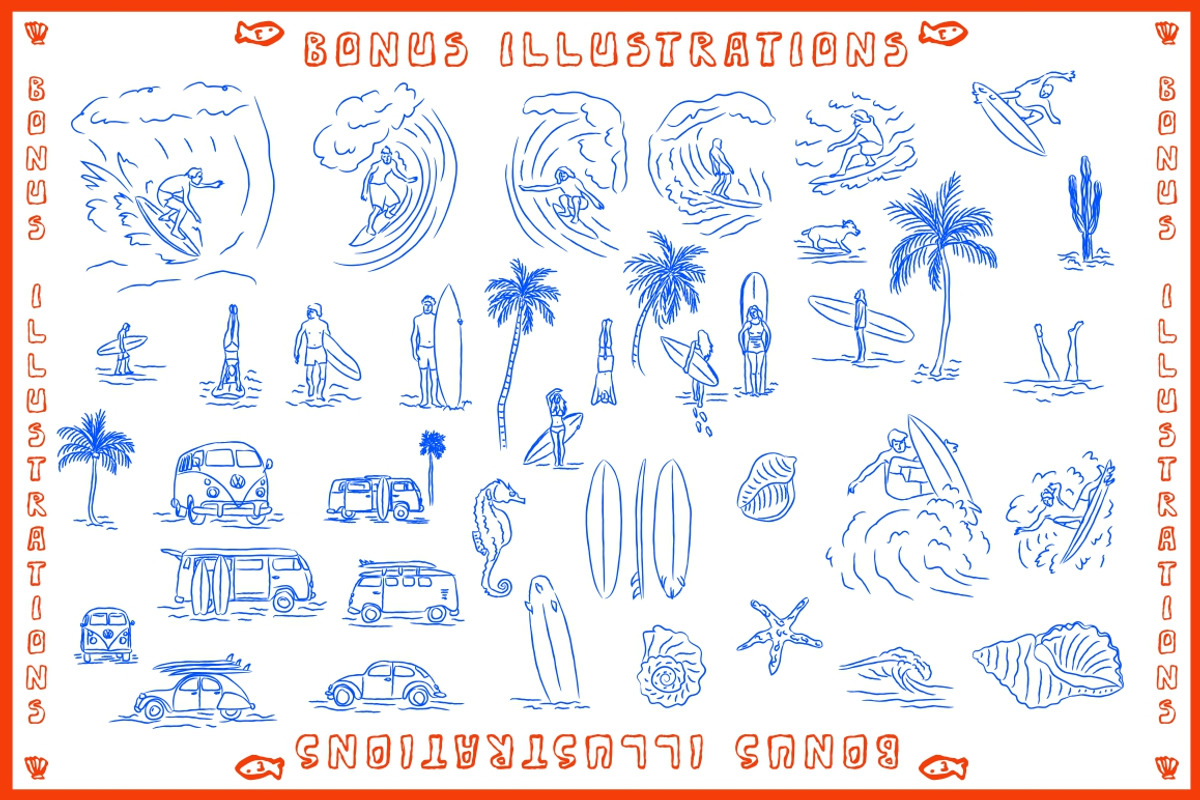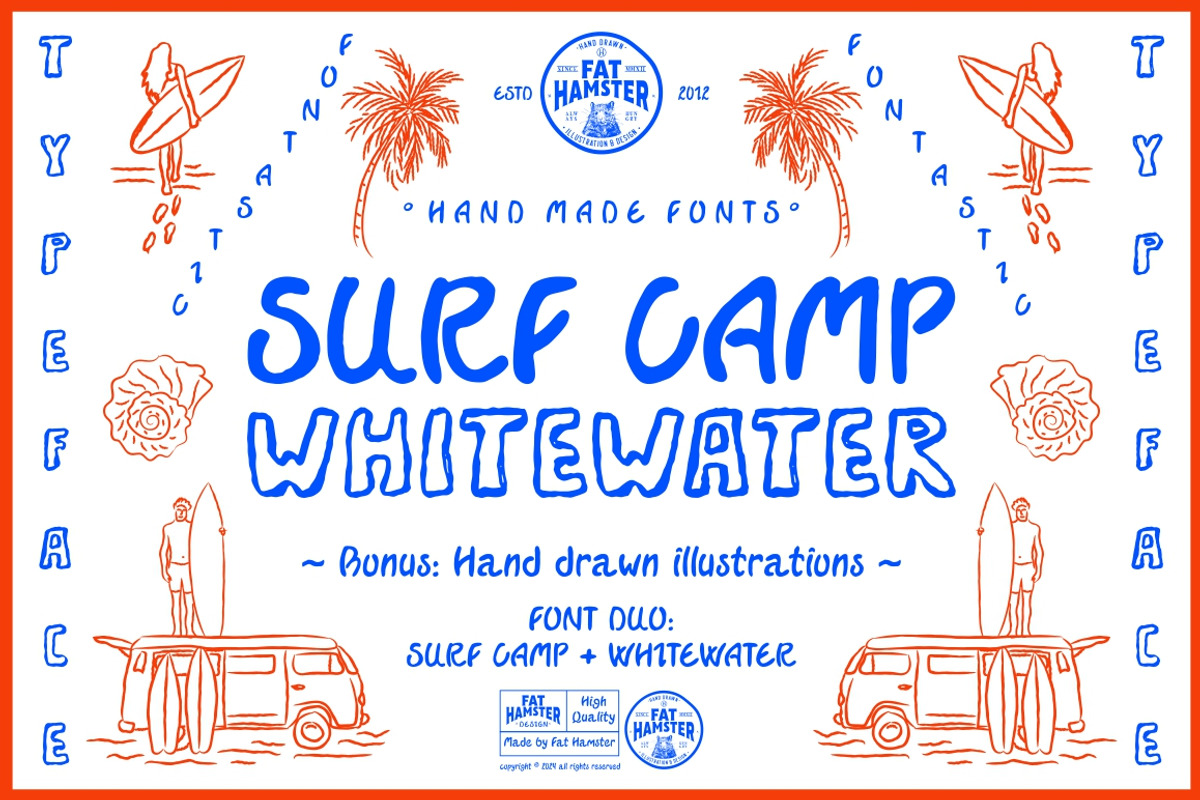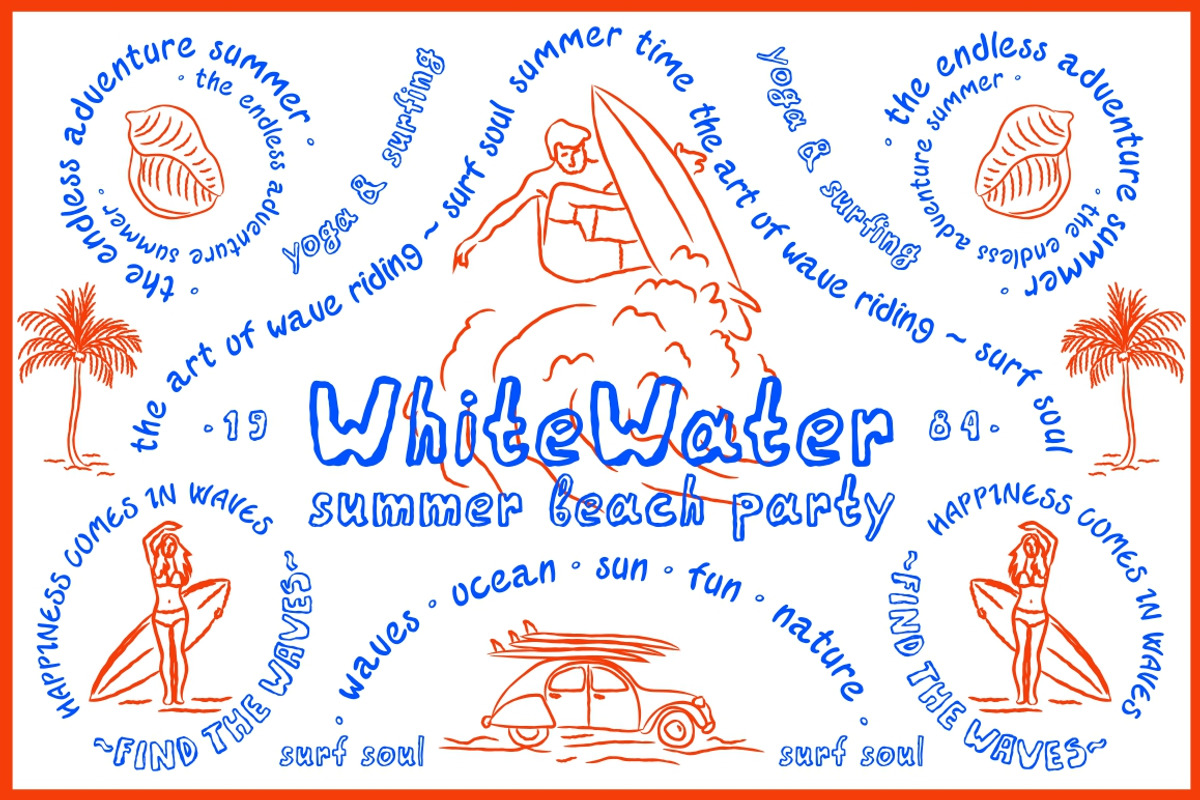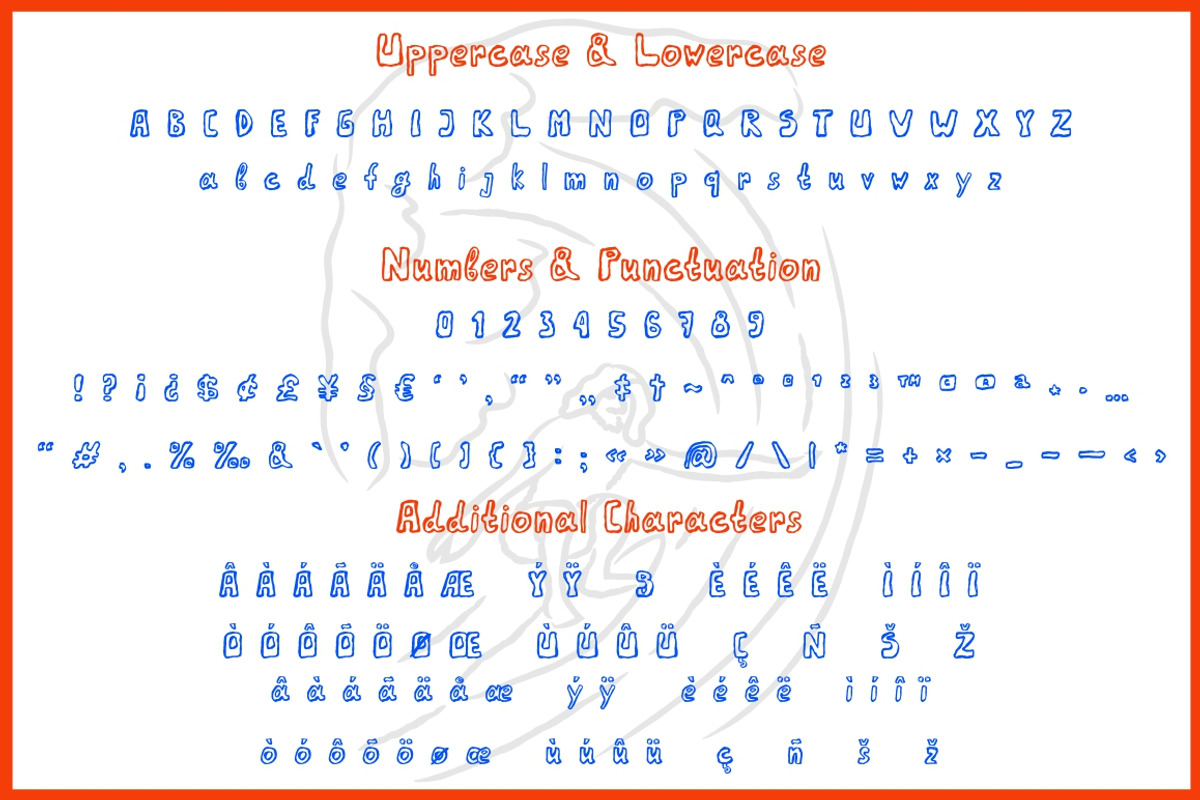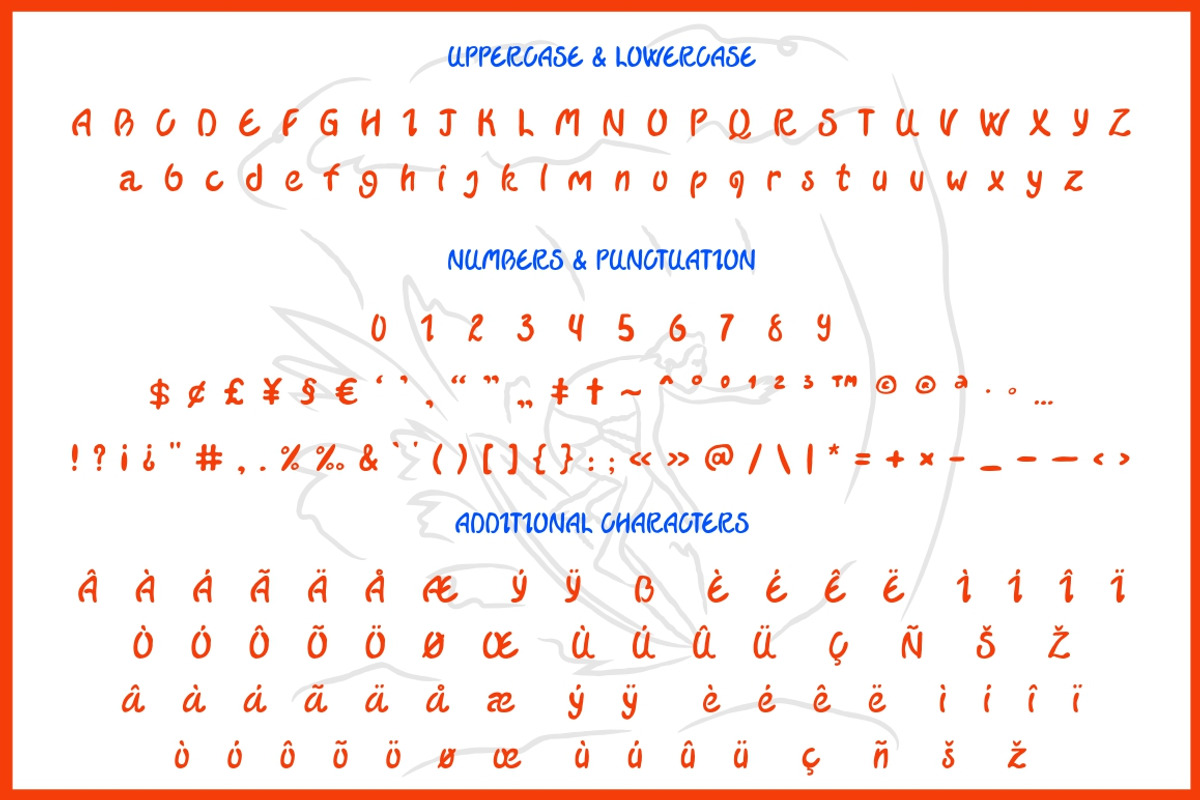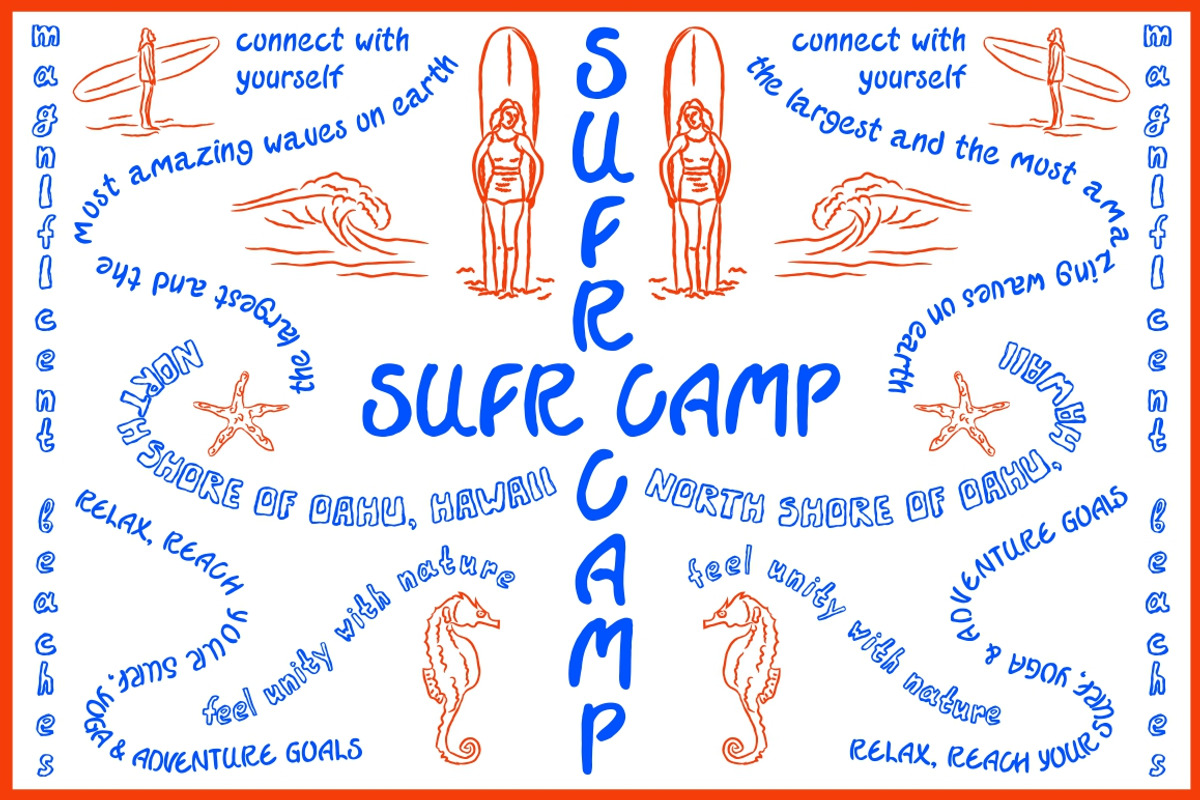
Surf Camp & Whitewater fonts + bonus
Surf Camp font & Whitewater font are frivolous, unique hand drawn typefaces in surfing style
The new hand drawn Surf Camp and Whitewater fonts in surfing style capture the essence of the ocean and beach culture with their flowing and dynamic letterforms. The sharp angles and exaggerated curves mimic the movements of waves, while the playful and bold strokes reflect the vibrant energy of surfers. These fonts add a sense of adventure and a laid-back vibe to any design, invoking the spirit of surfing and the thrill of riding the waves.
Fun surfing hand drawn illustrations can be a great way to add a playful and artistic touch to surf-related content. They offer a unique and whimsical aesthetic that can capture the excitement and freedom of riding the waves. Whether used in advertisements, logos, or on merchandise, hand drawn illustrations can bring a lighthearted and enjoyable element to the world of surfing.